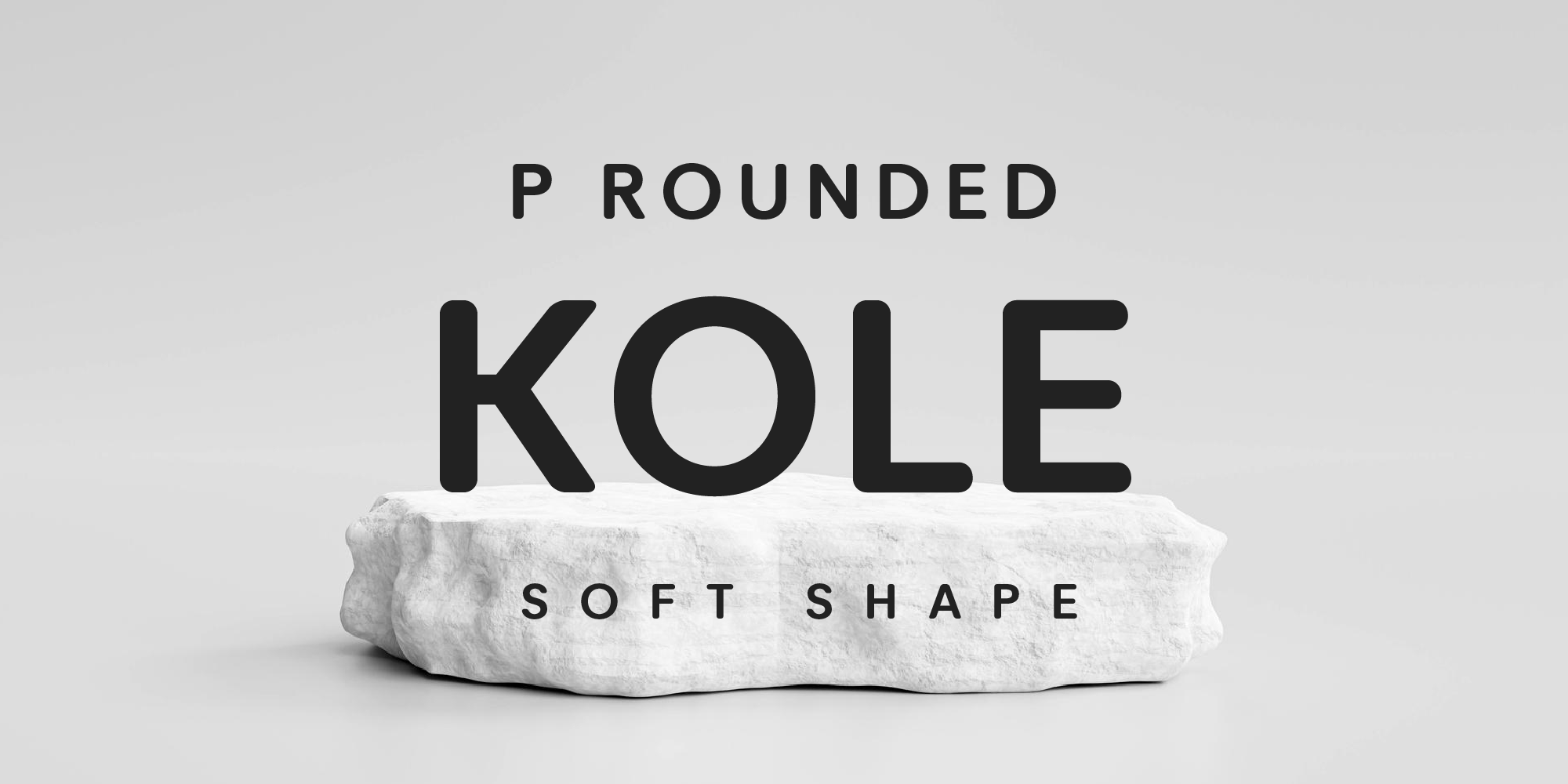
Kole P Rounded Font is perfect for modern branding, editorial layouts, user interfaces, packaging design, and web design. Its clean, rounded sans-serif style offers a friendly yet professional appearance, making it ideal for both digital and print applications.
What makes Kole P Rounded Font Free Download so exciting is its versatility across various weights—from Thin to Black—allowing designers to create dynamic typographic hierarchies. The font's smooth curves and geometric precision ensure excellent readability and aesthetic appeal.
The Kole P Rounded font family includes 18 styles: Thin, Thin Oblique, Extra Light, Extra Light Oblique, Light, Light Oblique, Regular, Regular Oblique, Medium, Medium Oblique, Semi Bold, Semi Bold Oblique, Bold, Bold Oblique, Extra Bold, Extra Bold Oblique, Black, and Black Oblique. This extensive range provides flexibility for diverse design needs.